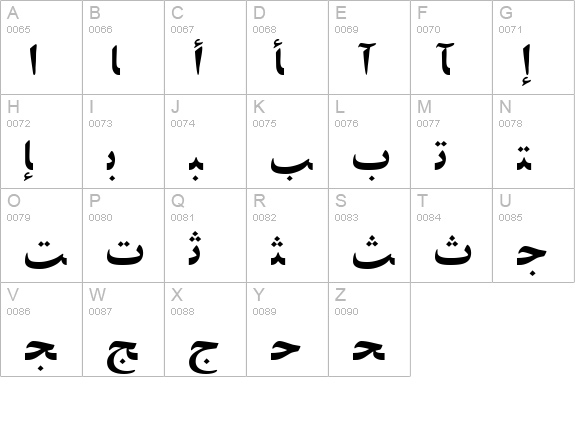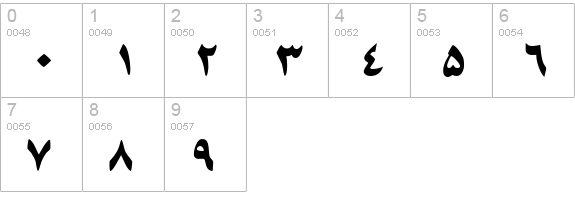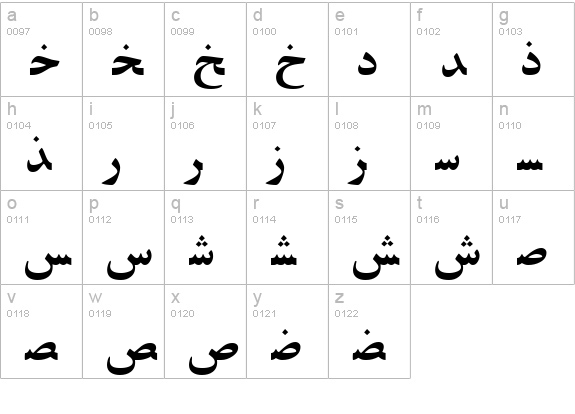
ArabicZibaSSK Font Details
ArabicZibaSSK is a stunning Arabic font that effortlessly combines traditional calligraphy with a modern touch. Its elegant curves and intricate details make it perfect for adding a touch of sophistication to any design project. This font is not only visually appealing but also highly versatile, making it suitable for a wide range of applications such as branding, advertising, and more. What's even better is that ArabicZibaSSK is available for free download at FontsMarket.com. So, designers and creatives can easily access this beautiful font to enhance their creations without any cost. Whether you're working on a logo, poster, or any other design project, ArabicZibaSSK is sure to elevate your work and leave a lasting impression. Download this exquisite font today and bring your designs to life with its timeless beauty and charm.